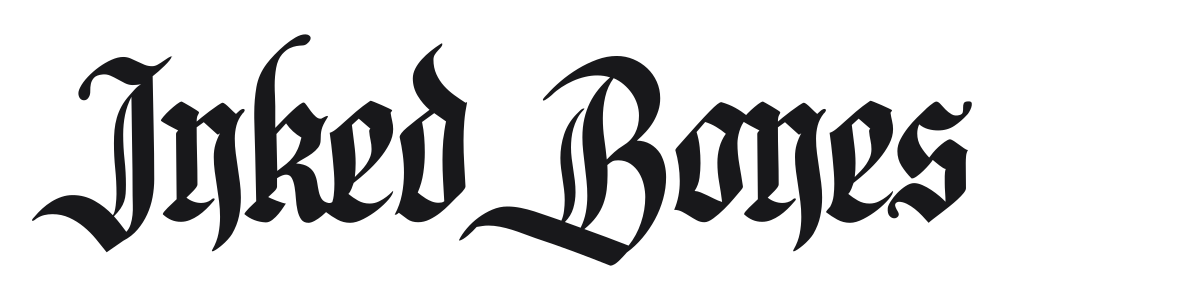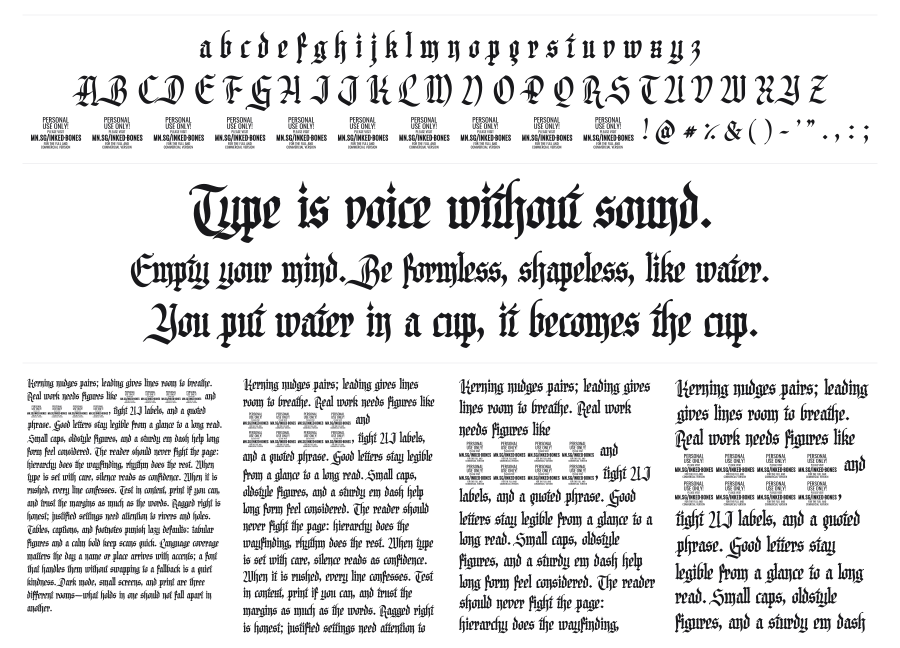
Inked Bones
Inked Bones is a hand-painted blackletter by Måns Grebäck that sits somewhere between medieval manuscript and tattoo flash sheet. The rough, inky strokes give it an organic weight that mechanical gothic fonts lack. It reads equally well as a heavy metal band logo or a medieval-themed title card.